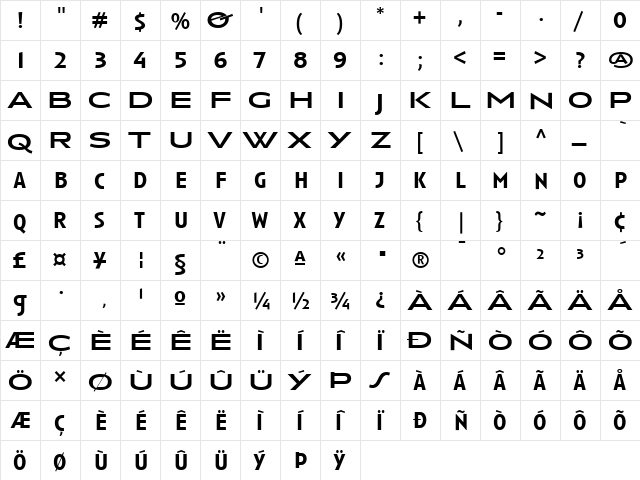
Anisette Medium Regular Font Preview
Anisette Medium Regular
Anisette Medium Regular Font Details
| Foundry | The Font Bureau Inc |
| Designer | Jean-Francois Porchez |
Design Context for Anisette Medium Typeface
Anisette Medium takes a measured approach to typography — its balanced proportions and neutral character make it a reliable workhorse for both digital and print work.